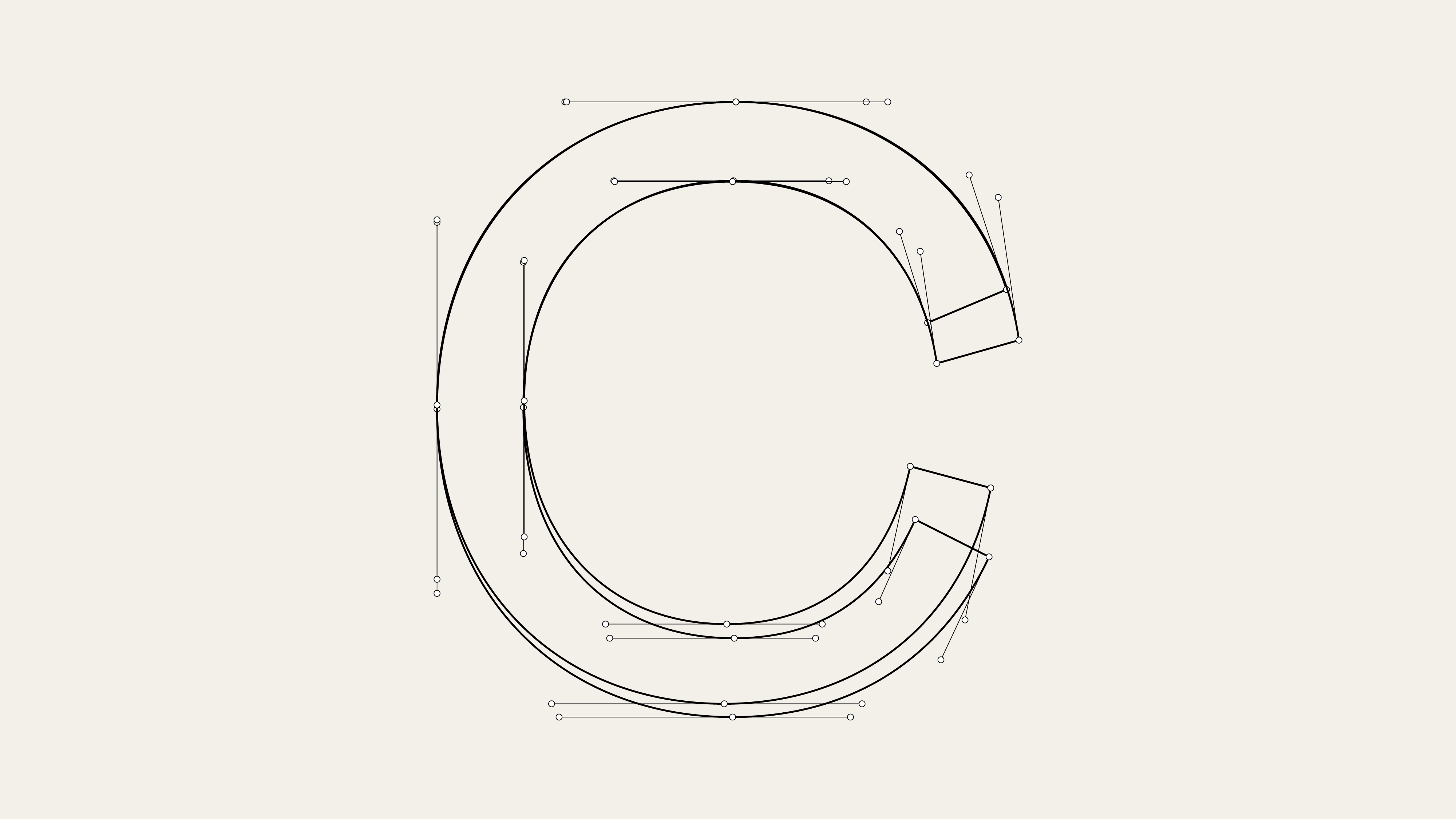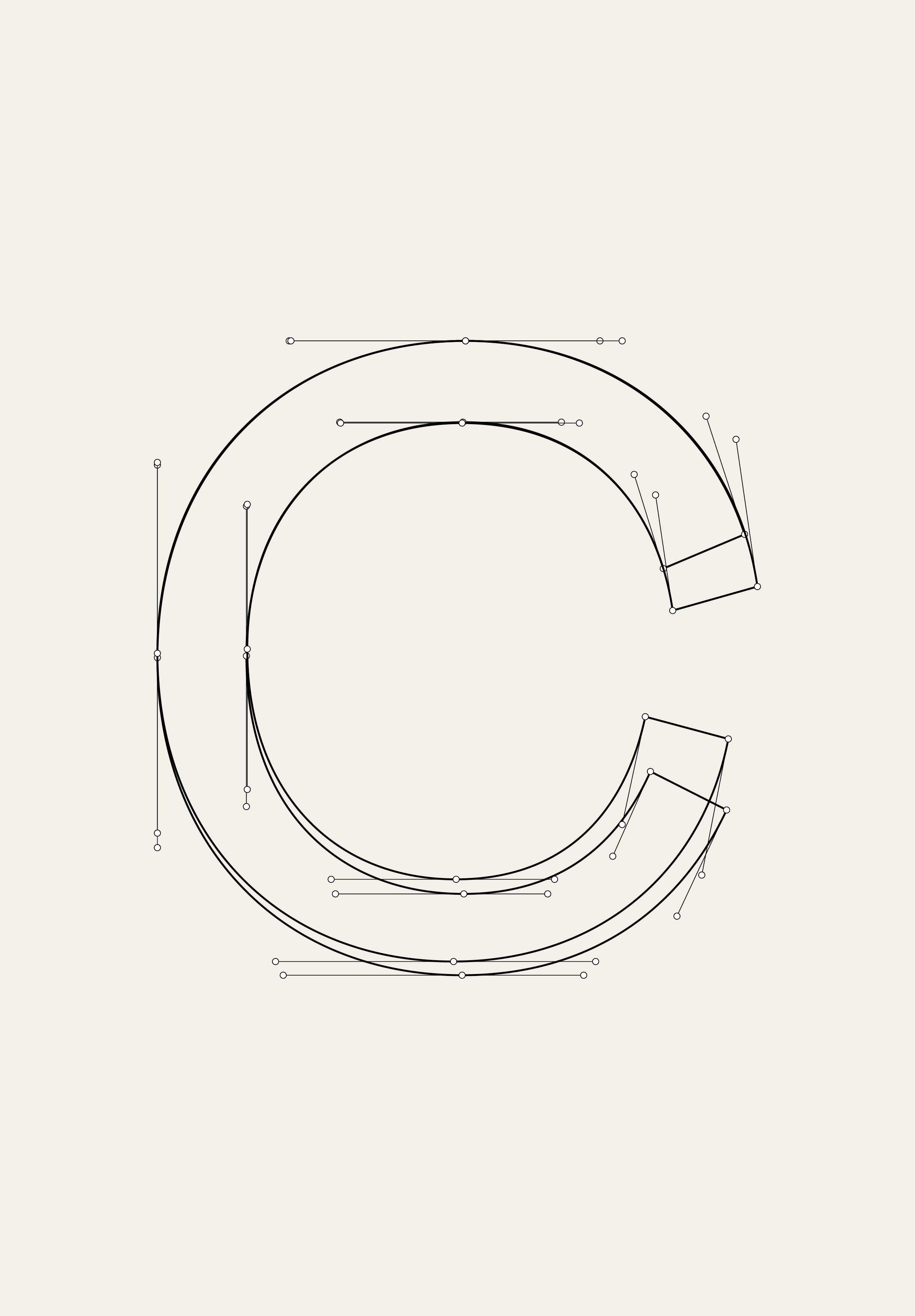
F37 Grotesc Text®
Typographical inspiration is often sparked by a tiny oddity or quirk. That’s the story of F37 Grotesc, the font that was born from a serious case of overbite.
F37 Grotesc comes in two versions, one for text, which is more legible and optically balanced. And one for display, with the quirkiness and overbite turned up to 11.